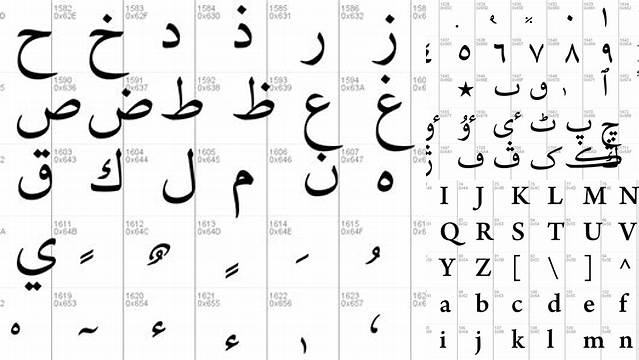
Free Adobe Naskh Medium Font: Guide & Alternatives
Embarking on a journey into the world of typography can be both exciting and daunting, especially when you're on the hunt for the perfect font to elevate your projects. One font that often surfaces in discussions among designers and typographers is Adobe Naskh Medium. This elegant typeface, with its rich history and graceful curves, has become a staple in various design domains. But what exactly makes Adobe Naskh Medium so special? And where can you find it for free? Well, guys, let's dive deep into this comprehensive guide to explore everything you need to know about Adobe Naskh Medium and how to potentially snag it without spending a dime.
1. What is Adobe Naskh Medium Font?
Adobe Naskh Medium is more than just a font; it's a work of art. It falls under the Naskh script, one of the oldest and most influential Arabic calligraphy styles. Naskh is known for its clarity and legibility, making it a favored choice for both print and digital media. The Adobe version, particularly the Medium variant, strikes a balance between traditional aesthetics and modern usability. Its clean lines and balanced proportions make it an excellent choice for body text, headings, and even intricate designs. But why is legibility so important, you ask? Well, imagine trying to read a novel written in a font that's overly decorative or cramped – it'd be a nightmare! Adobe Naskh Medium avoids this pitfall, ensuring your message is conveyed clearly and beautifully. Plus, its elegant appearance adds a touch of sophistication to any project, making it a go-to for designers aiming for a professional and polished look.
2. History and Evolution of Naskh Script
To truly appreciate Adobe Naskh Medium, it’s essential to understand the historical roots of the Naskh script itself. Originating in the early centuries of Islamic history, Naskh emerged as a more streamlined and legible alternative to earlier scripts like Kufic. Its development is intertwined with the rise of paper and the need for a script that could be written quickly and efficiently. Over the centuries, Naskh has undergone numerous transformations, with different calligraphers and regions adding their unique flair. This rich history adds depth to the Adobe Naskh Medium font, connecting it to a long and vibrant tradition. Think of it like this: using Adobe Naskh Medium isn't just choosing a font; it's embracing a piece of cultural heritage. The evolution of Naskh also highlights the constant interplay between practicality and aesthetics in typography. It’s a reminder that even the most functional elements of design can be beautiful and meaningful.
3. Key Characteristics of Adobe Naskh Medium
So, what are the defining features of Adobe Naskh Medium that set it apart? Firstly, its balanced letterforms are a hallmark, ensuring each character is distinct and harmonious. The medium weight provides excellent readability, avoiding the extremes of being too thin or too bold. The font’s curves and counter-spaces are carefully crafted, contributing to its overall elegance. Moreover, Adobe Naskh Medium often includes a comprehensive set of glyphs, supporting various Arabic script variations and diacritics. This makes it a versatile choice for projects requiring precise typography. Imagine using a font that only supports a limited set of characters – it'd be like trying to paint a masterpiece with only a few colors! Adobe Naskh Medium's extensive character set ensures you have all the tools you need to express your message fully. The balance between traditional calligraphic elements and modern design principles is another key characteristic, making it suitable for both contemporary and classic designs.
4. Design Applications of Adobe Naskh Medium
Where can you use Adobe Naskh Medium to its full potential? The possibilities are vast! Its legibility makes it ideal for body text in books, magazines, and websites. The elegant appearance lends itself well to branding and logo design, adding a touch of sophistication to your visual identity. In the realm of print, Adobe Naskh Medium shines in invitations, brochures, and posters. Its versatility extends to digital applications as well, making it a great choice for user interfaces and web design. Think about it: a website using Adobe Naskh Medium for its headings instantly conveys a sense of professionalism and refinement. The font’s ability to adapt to different contexts is one of its greatest strengths. Whether you’re designing a minimalist website or a richly detailed poster, Adobe Naskh Medium can deliver the perfect typographic touch.
5. Adobe Naskh vs. Other Arabic Fonts
In the world of Arabic typography, there's a plethora of fonts to choose from. So, how does Adobe Naskh Medium stack up against the competition? Compared to other Naskh variations, Adobe Naskh Medium often stands out for its balance and clarity. It's less ornamental than some traditional Naskh fonts, making it more accessible for a wider range of applications. When compared to other Arabic scripts like Kufic or Thuluth, Naskh (and by extension, Adobe Naskh Medium) is generally considered more legible and modern. This makes it a practical choice for projects requiring readability. It’s like choosing between a classic suit and a trendy outfit – both have their place, but the classic suit is often more versatile. The subtle nuances in stroke weight and letterform design also differentiate Adobe Naskh Medium from its counterparts, contributing to its unique character and appeal.
7. Open Source Naskh Font Options
Let’s delve deeper into the world of open-source Naskh fonts. Several excellent options are available that can serve as alternatives to Adobe Naskh Medium. Fonts like Amiri, Reem Kufi, and Lateef offer similar aesthetics and are available under open-source licenses. These fonts often come with extensive character sets and support various typographic features. Using open-source fonts not only saves you money but also provides the flexibility to modify and adapt the font to your specific needs. It’s like having a customizable tool in your design arsenal! These fonts are often collaborative projects, meaning they benefit from the contributions of multiple designers and typographers, resulting in high-quality and well-maintained resources. The open-source community is a treasure trove of design resources, and Arabic fonts are no exception.
8. Google Fonts Naskh Alternatives
Google Fonts is a fantastic resource for free fonts, and it offers several Naskh alternatives worth exploring. Fonts like Noto Naskh Arabic and Scheherazade are excellent choices for projects requiring a legible and elegant Arabic typeface. These fonts are designed to work seamlessly on the web and are optimized for screen readability. Google Fonts makes it incredibly easy to embed these fonts into your website or use them in your design software. It’s like having a library of fonts at your fingertips, ready to be used in your next project! The platform’s intuitive interface and extensive filtering options make it easy to find the perfect font for your needs. Plus, Google Fonts ensures that the fonts are delivered efficiently, minimizing any impact on website loading times.
9. Font Squirrel Naskh Options
Font Squirrel is another excellent website for finding free fonts, including Naskh-style typefaces. This platform specializes in fonts that are free for commercial use, making it a valuable resource for designers and businesses alike. Font Squirrel often features fonts that are not as widely known as those on Google Fonts, providing a chance to discover unique and interesting options. It’s like finding a hidden gem in a vintage store! The website's user-friendly interface and clear licensing information make it easy to navigate and choose the right font for your project. Plus, Font Squirrel offers font generators and other tools to help you customize and optimize your typography.
30. Resources for Learning More About Arabic Typography
If you’re eager to delve deeper into the world of Arabic typography, there are numerous resources available to expand your knowledge and skills. Online courses, workshops, and tutorials offer in-depth instruction on Arabic calligraphy, typography principles, and font design. It’s like enrolling in a masterclass taught by the experts – you’ll learn from the best! Books and articles on Arabic typography provide valuable insights into the history, theory, and practice of this art form. Websites and blogs dedicated to typography often feature articles and interviews with leading Arabic typographers. Engaging with the Arabic typography community through online forums and social media groups can provide valuable feedback and support. With dedication and a thirst for knowledge, you can master the art of Arabic typography and create stunning designs that honor this rich cultural heritage.